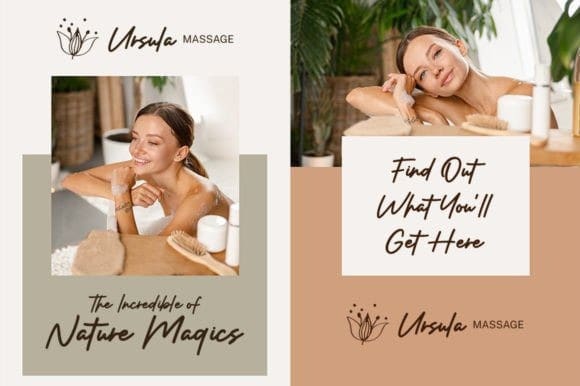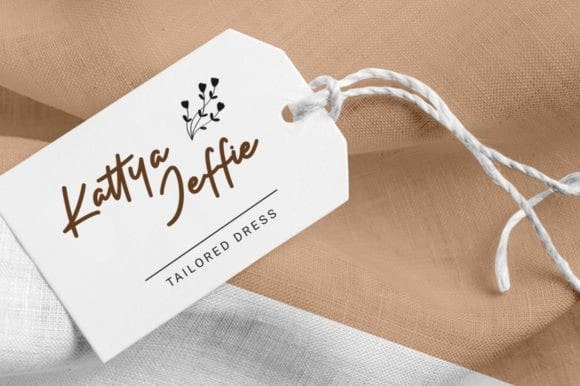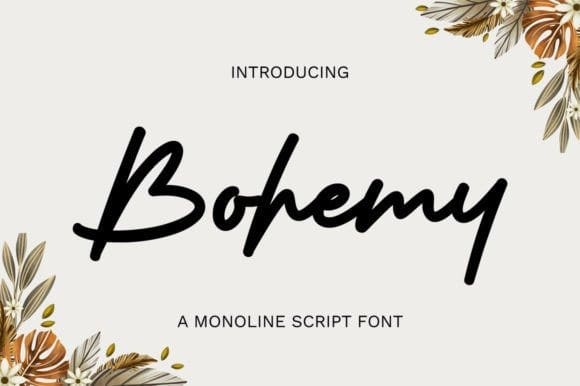
Bohemy Handwritten Font
Bohemy Handwritten Font is a beautiful, well-balanced, and graceful script font. It is defined by smooth curves and is perfect for fashion branding or editorial designs.